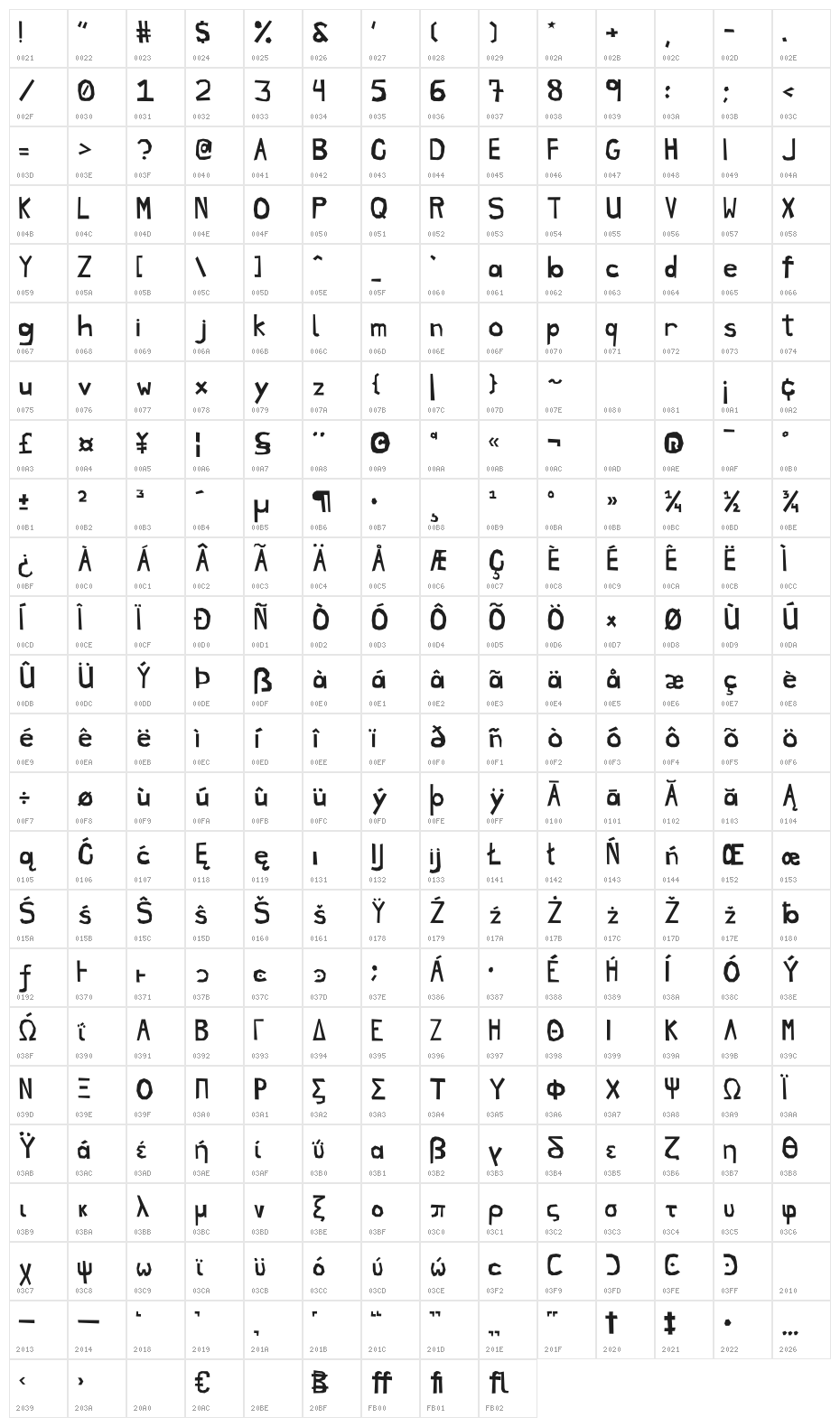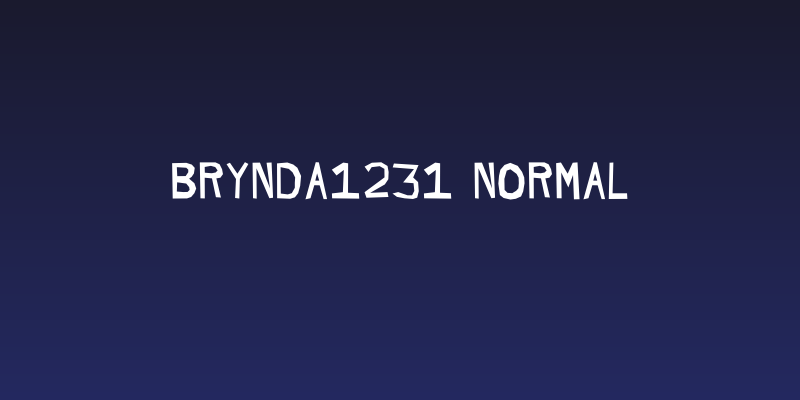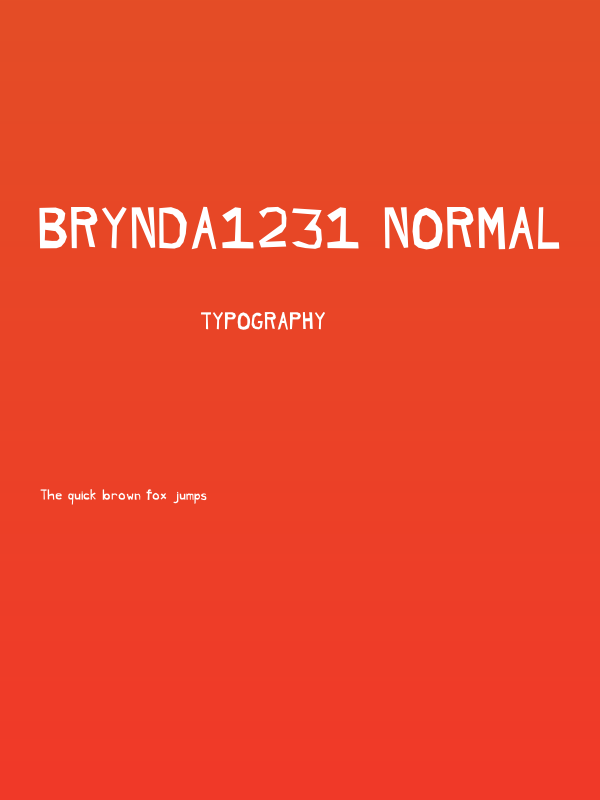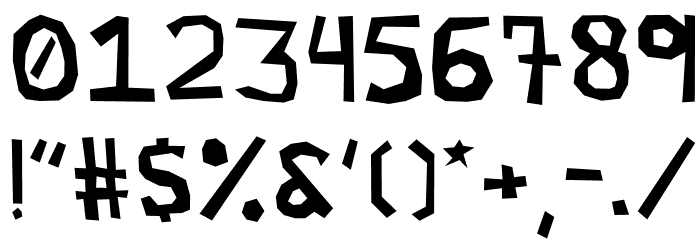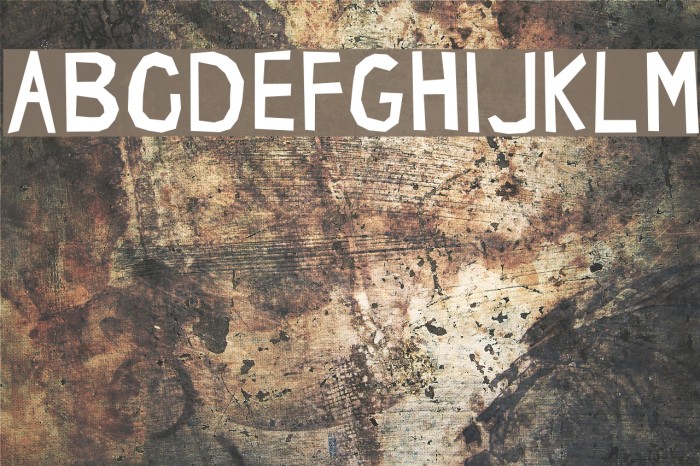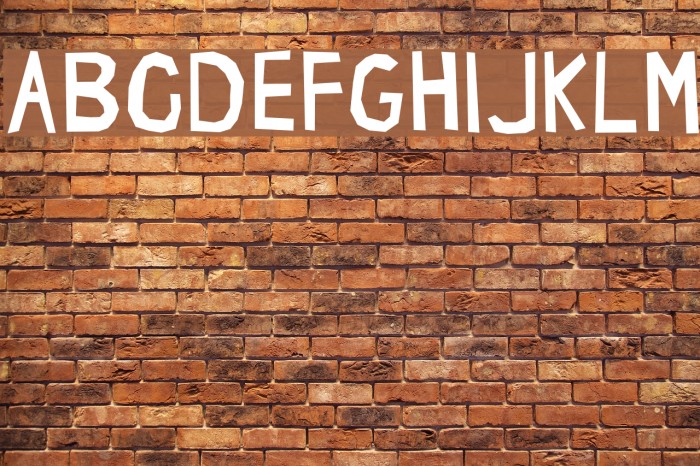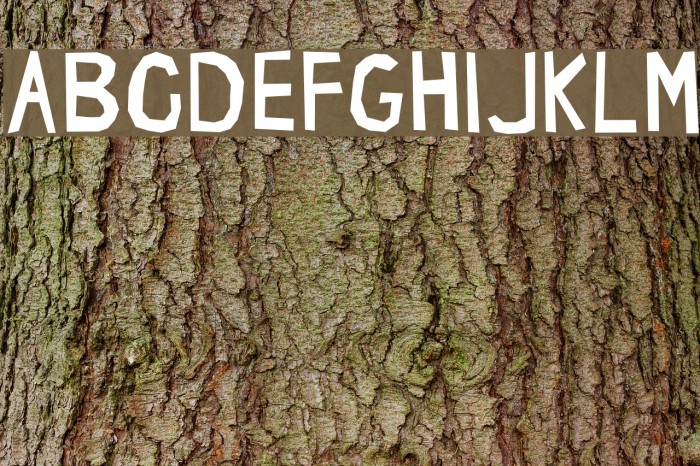
Brynda1231 normal Font
Brynda1231 normal Description
This font features a bold and playful design with irregular, hand-drawn strokes that give it a unique, quirky appearance. The characters are slightly uneven, adding a sense of whimsy and creativity. The uppercase and lowercase letters maintain a consistent style, with angular lines and a somewhat rugged texture. The numbers and special characters follow the same playful aesthetic, making the font suitable for informal and artistic projects. Its distinctive style is eye-catching and memorable, ideal for designs that require a personal touch.
| Proposed Projects | Ideal for children's books, creative posters, casual branding, and artistic projects. |